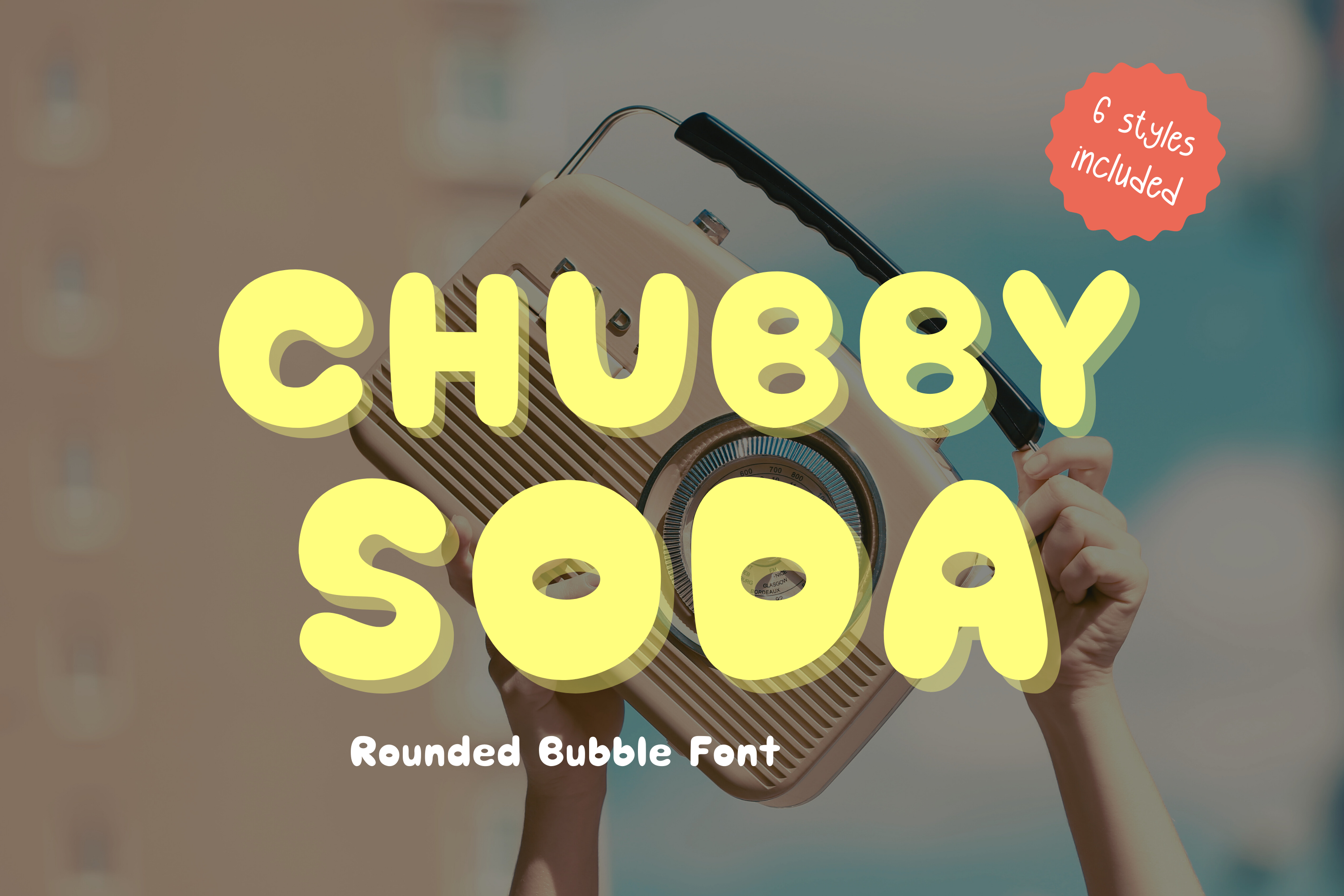
Retro bubble font - Chubby Soda
Chubby Soda – Rounded Bubble Font with 6 Playful Styles
Bring the fun to your designs with Chubby Soda, a bouncy, retro-inspired rounded bubble font perfect for projects that need a dose of cuteness and charm. Whether you're designing for kids, creating posters, launching a product, or making quirky branding elements, Chubby Soda delivers!